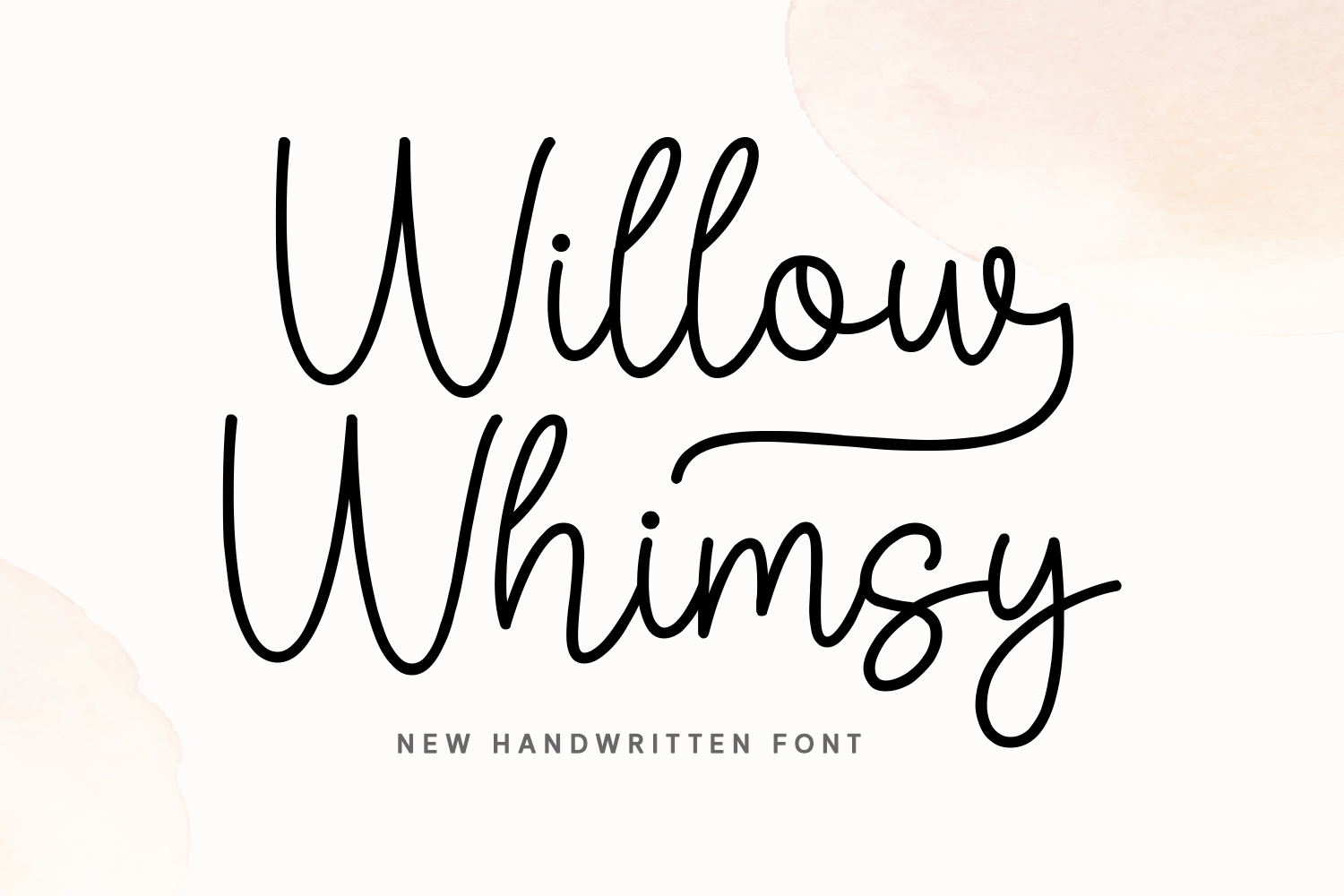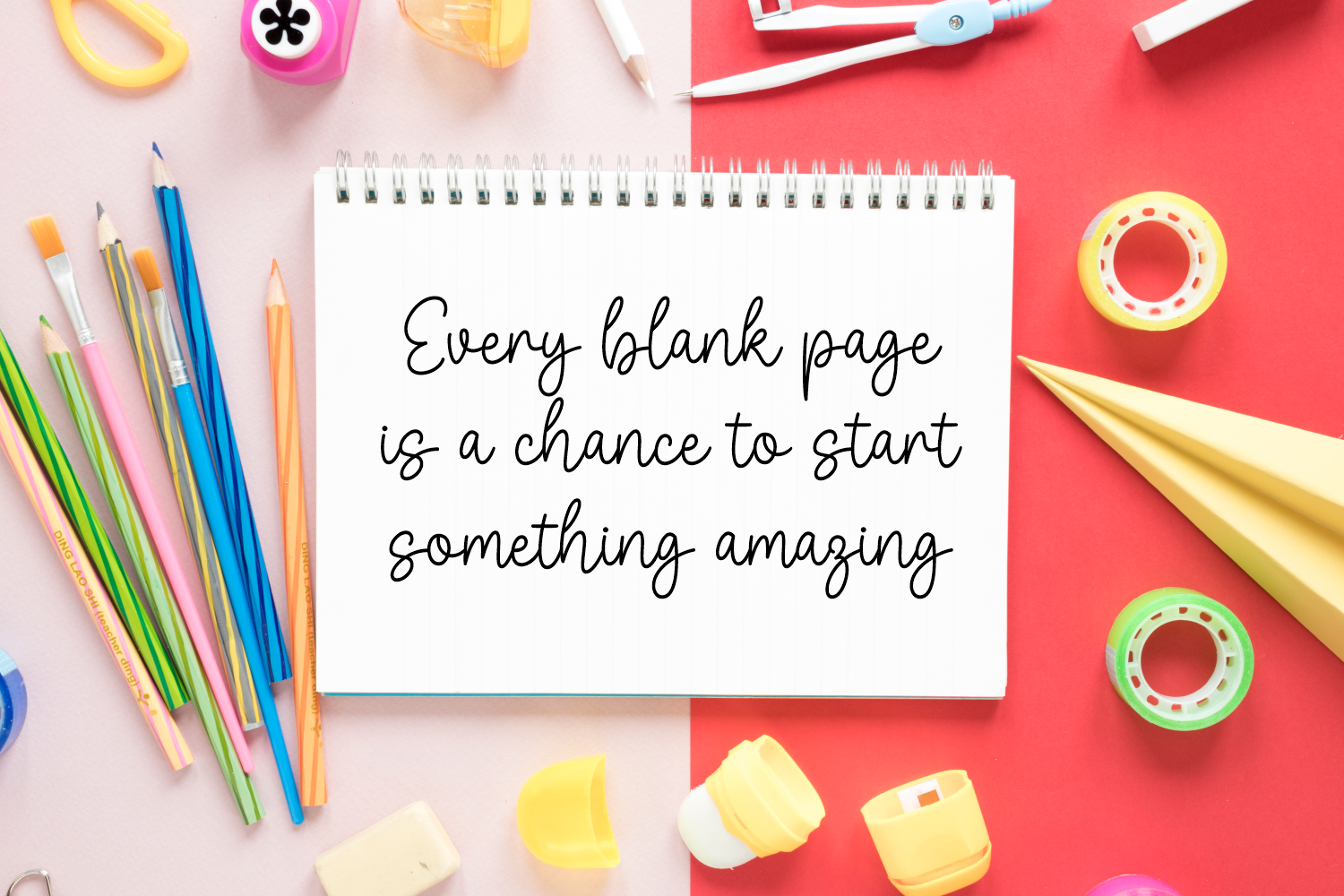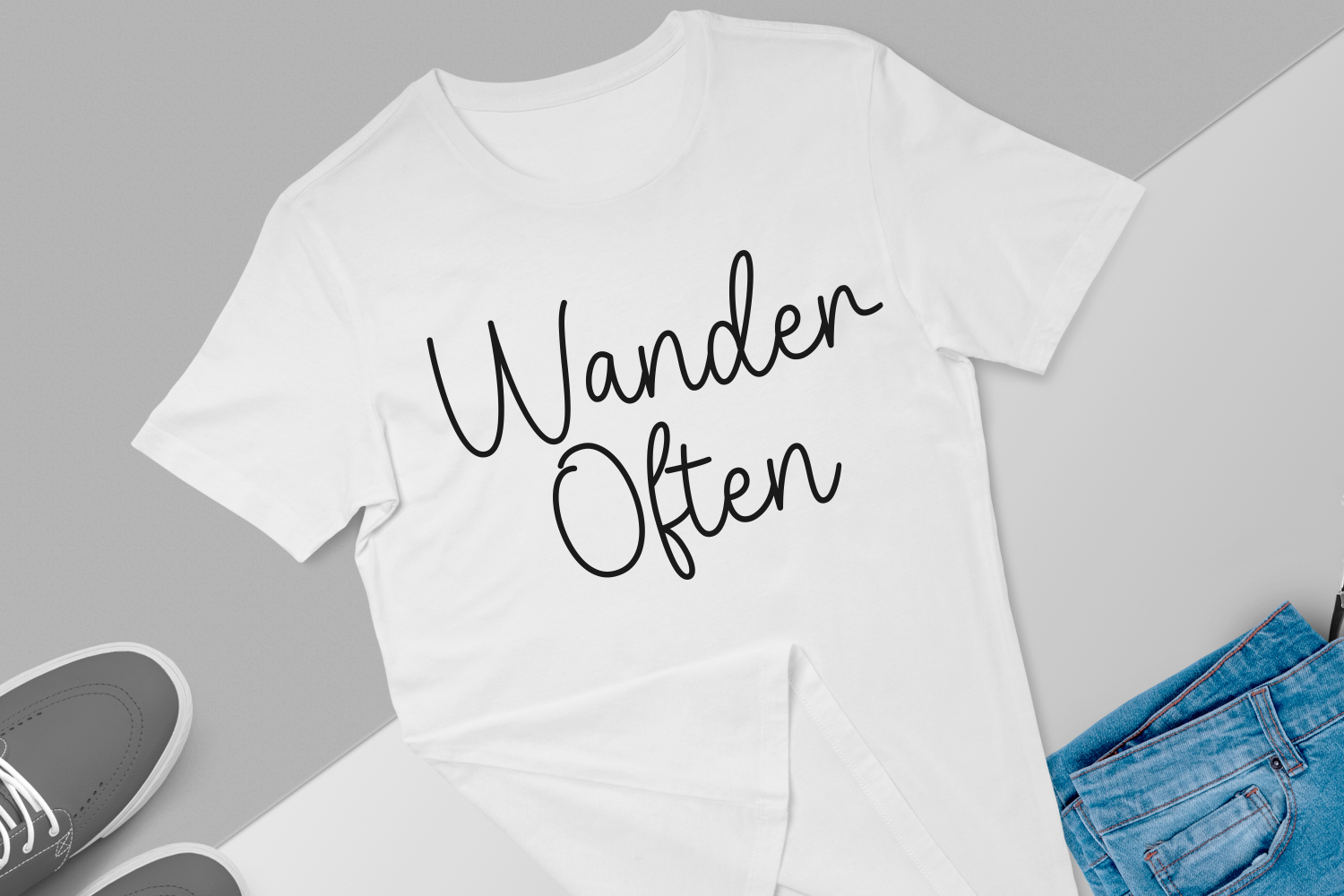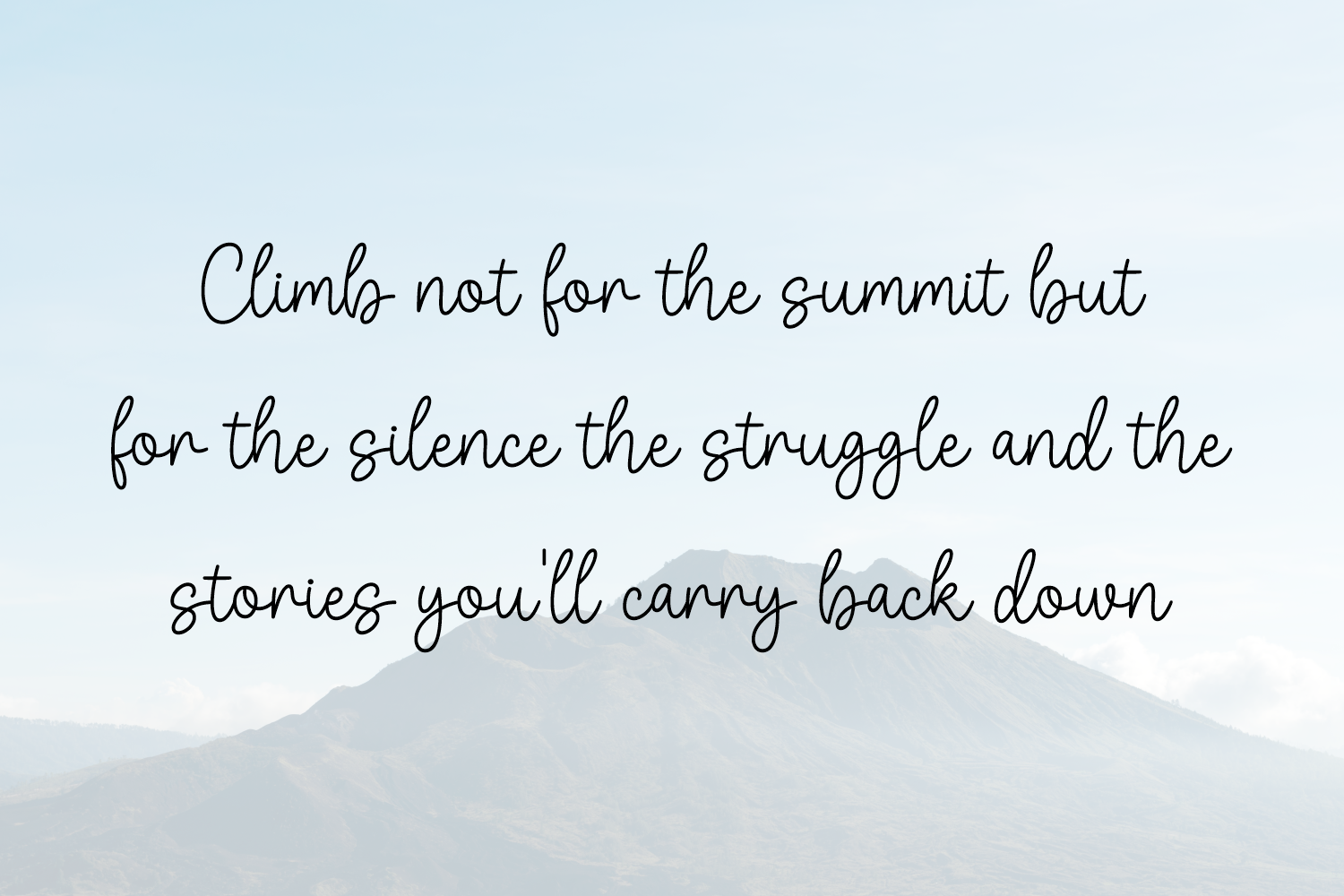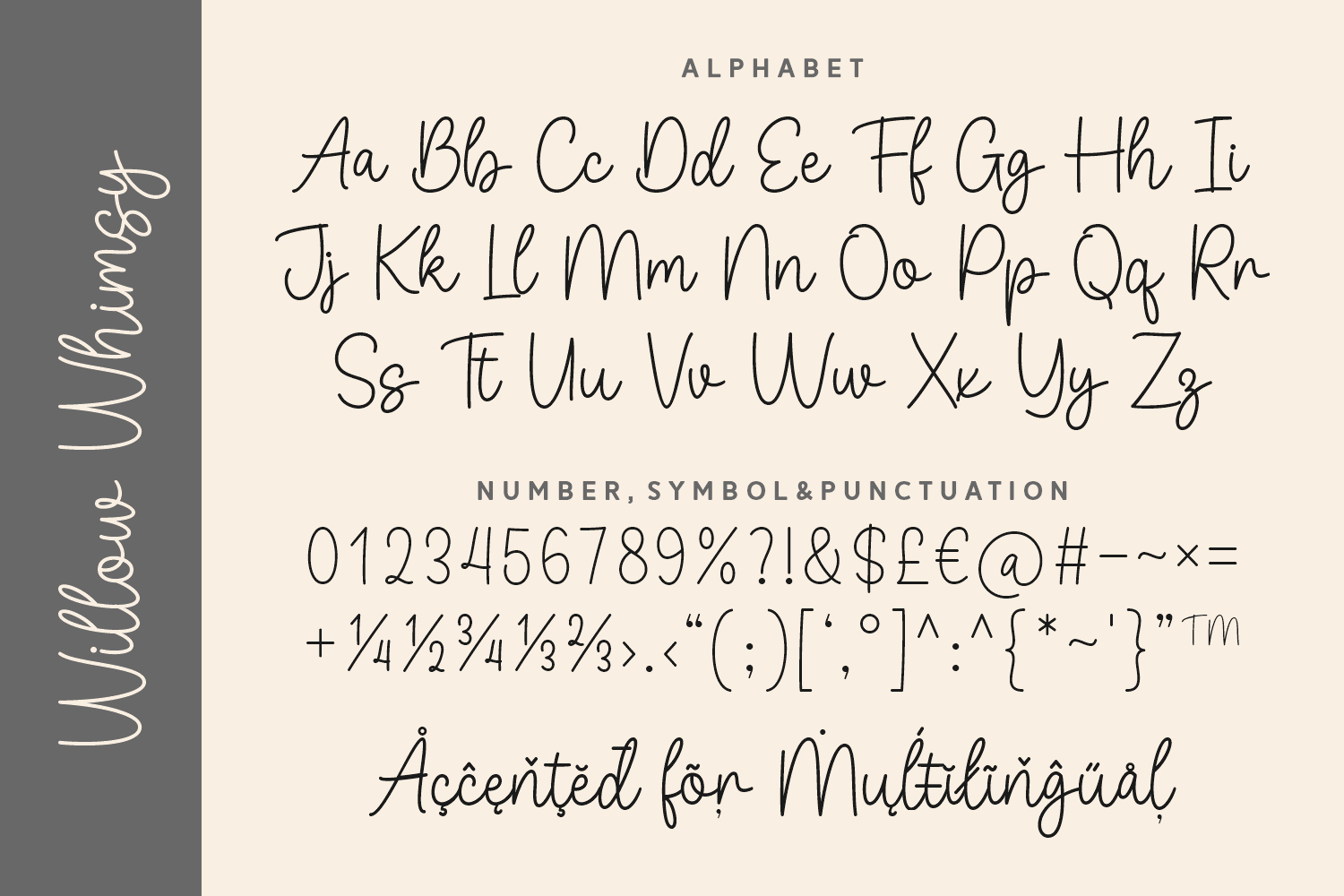
Willow Whimsy
Willow Whimsy is a light and elegant handwritten font with a touch of playfulness. Featuring flowing lines and soft curves, it's perfect for logos, invitations, feminine branding, and lifestyle blogs. The subtle swirl in the descenders adds just the right amount of charm without overwhelming your design.